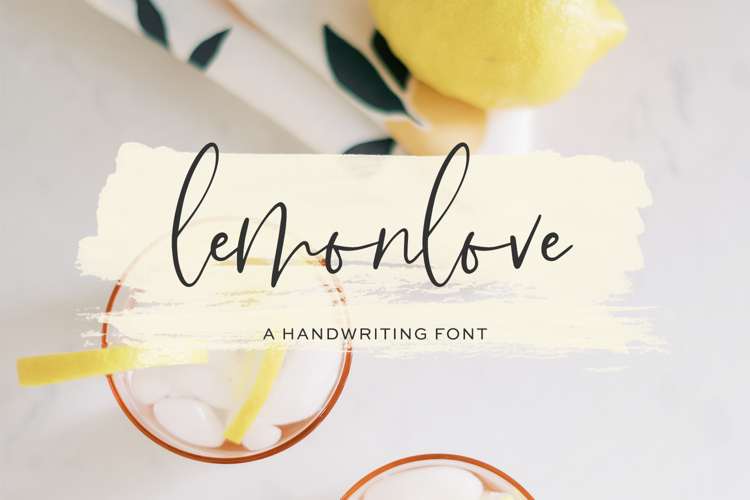
Introducing Lemonlove Script, a handwritten signature style font. This stylish font features a messy, casual look and includes alternate lowercase characters to fully customize your project.
Lemonlove Script is best for:
- website design + website accents - think travel blogs, fashion blogs, & more
- 26 alternate lowercase characters